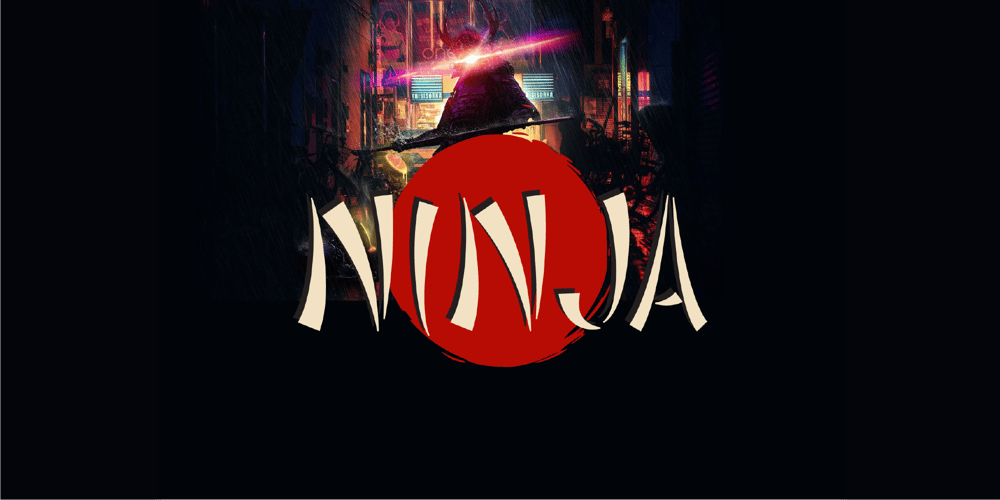
NINJA Japan Font Family was designed by Wahyu Aji Prasetyo and published by WAP Type. NINJA Japan contains 1 styles and family package options. Ninja japan style font is a handcrafted brush font, its have an asian and oriental looks, a perfect companion for your creative project that has an asian niche. Fujimaru can be used as horror effect or even the fun title for cartoon movie, just pick your style. Ninja is doing his best at the heading title,movie poster,quotes text,and so on.. Product Content :Features :• Character Set A-Z• Numerals & Punctuations (OpenType Standard)